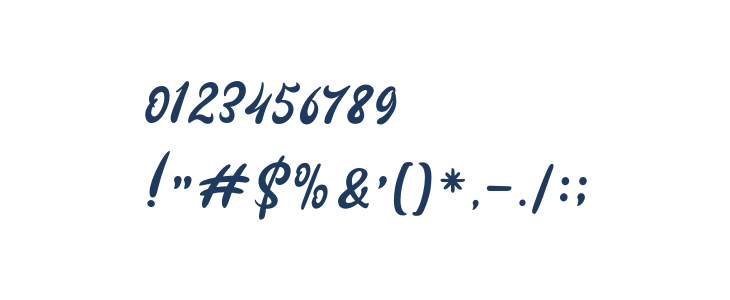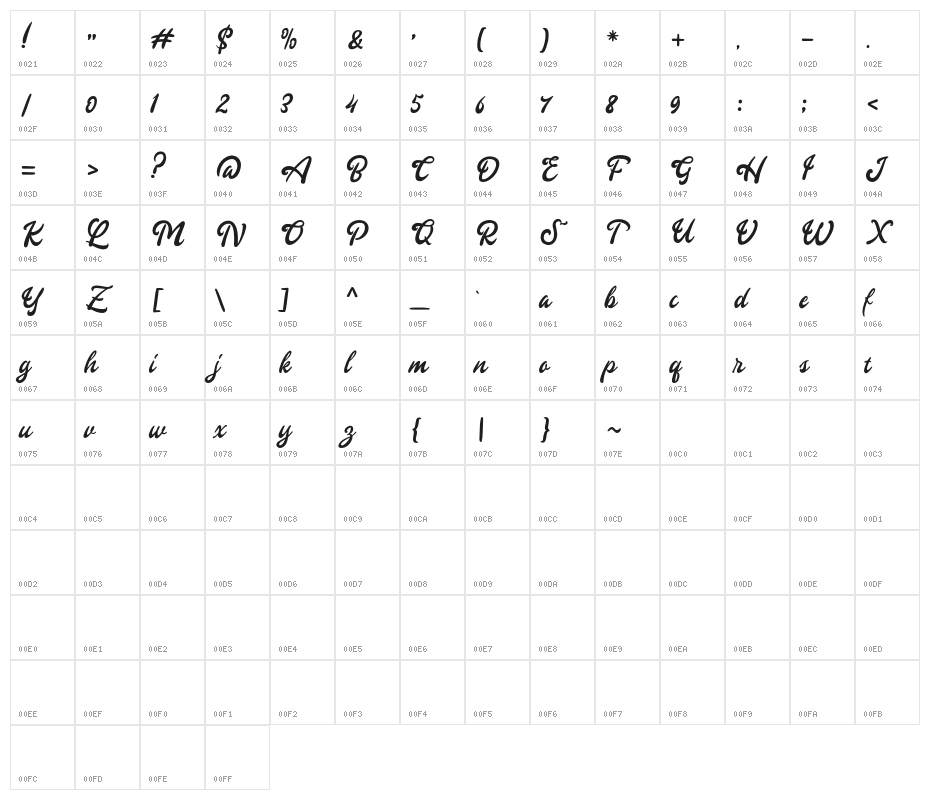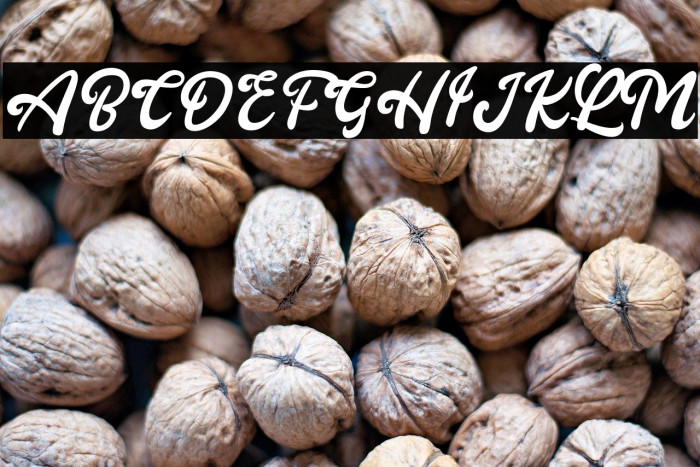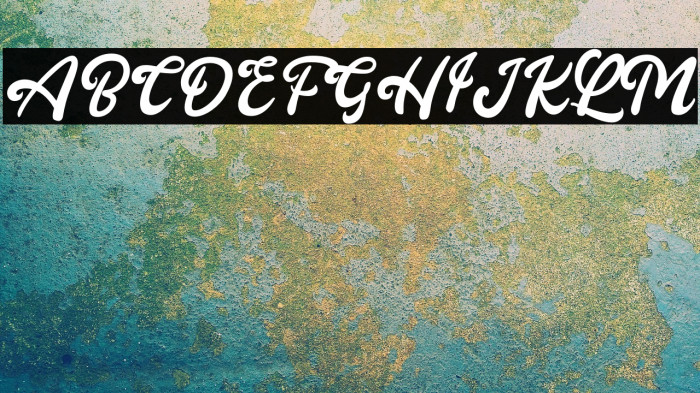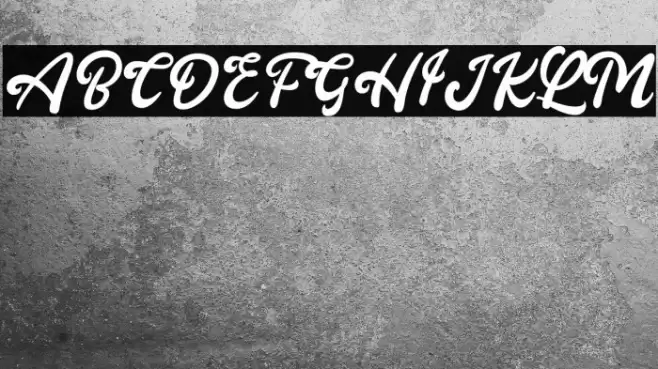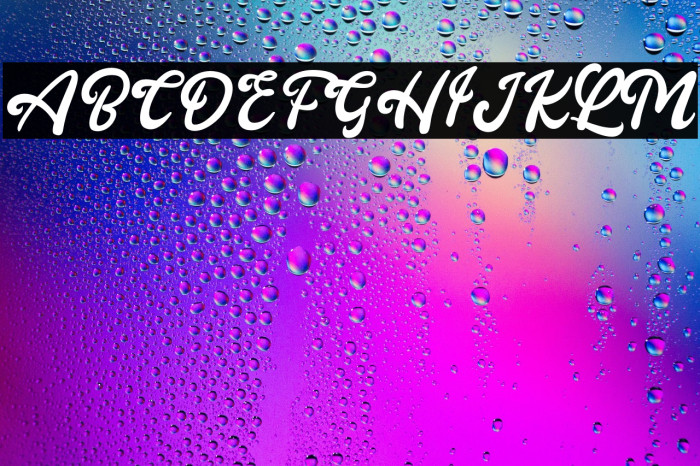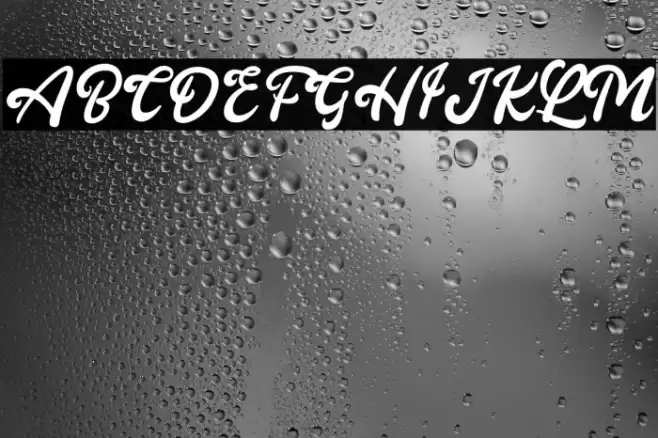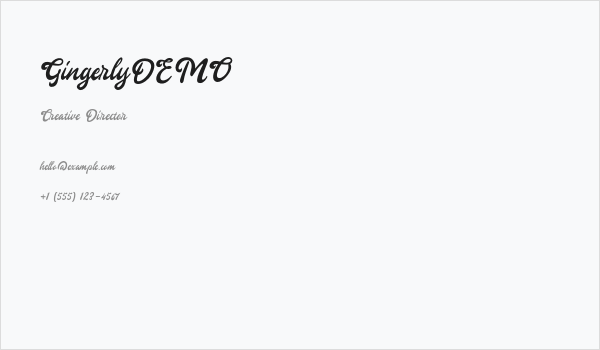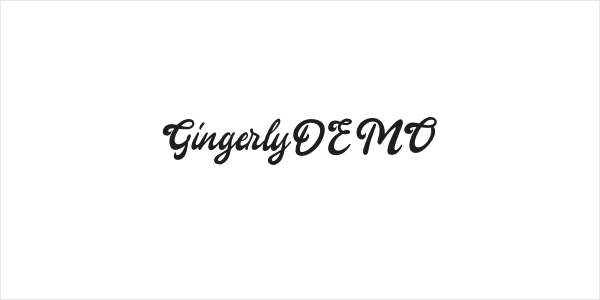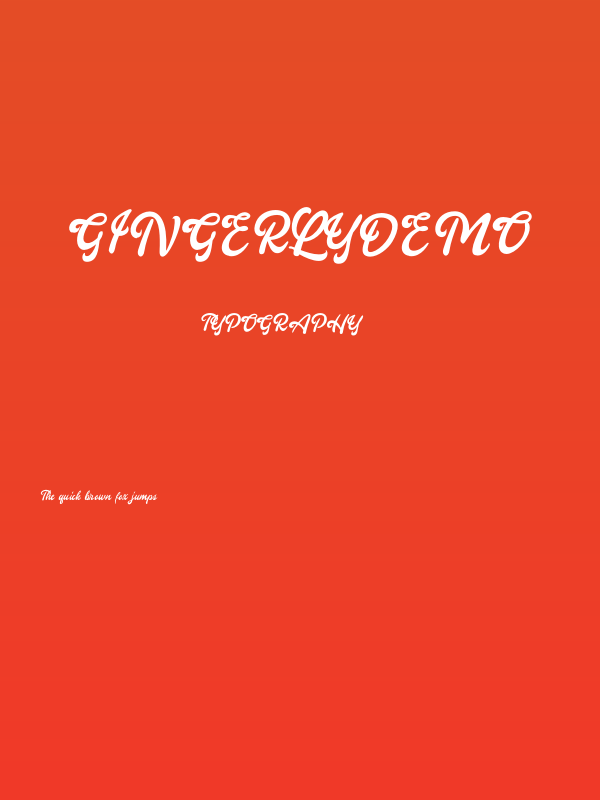
GingerlyDEMO Font
GingerlyDEMO Description
This font features a flowing, cursive style with elegant curves and a handwritten appearance. The uppercase letters are bold and slightly slanted, giving a sense of movement and fluidity. The lowercase letters maintain a consistent style, with smooth connections between characters, enhancing the script-like quality. Numbers and special characters are designed to match the overall aesthetic, ensuring a cohesive look. The font's playful yet sophisticated nature makes it suitable for creative projects that require a personal touch.
| Proposed Projects | Ideal for wedding invitations, greeting cards, logos, and branding materials that require a personal and elegant touch. |